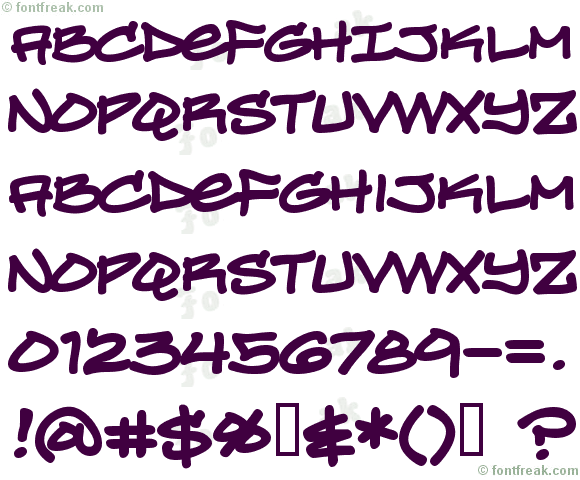
Turntablz BB
Turntablz BB Bold
About Turntablz
The Turntablz font by Blambot Fonts is a striking display typeface that embodies a bold, playful aesthetic. Released in 2003, this freeware font is designed with a unique flair, making it ideal for attention-grabbing projects. The font features a dynamic stroke weight that varies throughout its characters, creating an energetic and lively appearance. The slightly irregular spacing adds to its casual, street-inspired vibe, making it perfect for projects that seek to convey a sense of fun and creativity.
Turntablz excels in various use cases, particularly in the realms of music-related materials, such as album covers, concert posters, and promotional graphics for music events. Its vibrant style also makes it a fitting choice for youth-oriented brands, streetwear advertisements, and graffiti-inspired designs. Additionally, the font can be effectively utilized in digital content, including social media graphics and blog headers, where a bold statement is desired.
What truly sets the Turntablz font apart is its ability to convey a sense of energy and movement. The playful design elements and expressive form make it not just a typeface, but a statement piece that elevates any project. Whether you are promoting a music festival or designing vibrant merchandise, the Turntablz font is sure to make a lasting impression. Don’t miss the opportunity to enhance your creative projects with this distinctive typeface—consider a Turntablz font free download today.